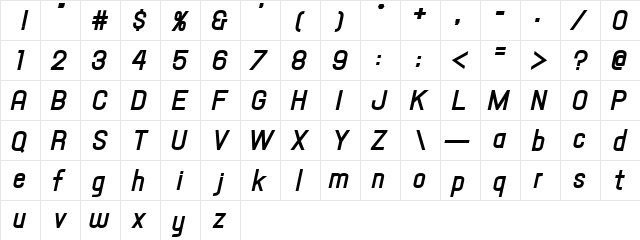
Complete Hallandale Text Bold Italic JL Regular glyph index. Displaying only characters natively supported by Hallandale Text Bold Italic JL Regular font.
Hallandale Text Bold Italic JL is a composed and adaptable typeface that performs quietly and consistently across a wide range of design contexts. The slanted form adds forward momentum and visual energy. Its bold stroke weight gives it real presence on the page.
Pro Tip: Use Hallandale Text Bold Italic JL for emphasis, pull quotes, and subheadings where its slanted energy can add rhythm to the layout.